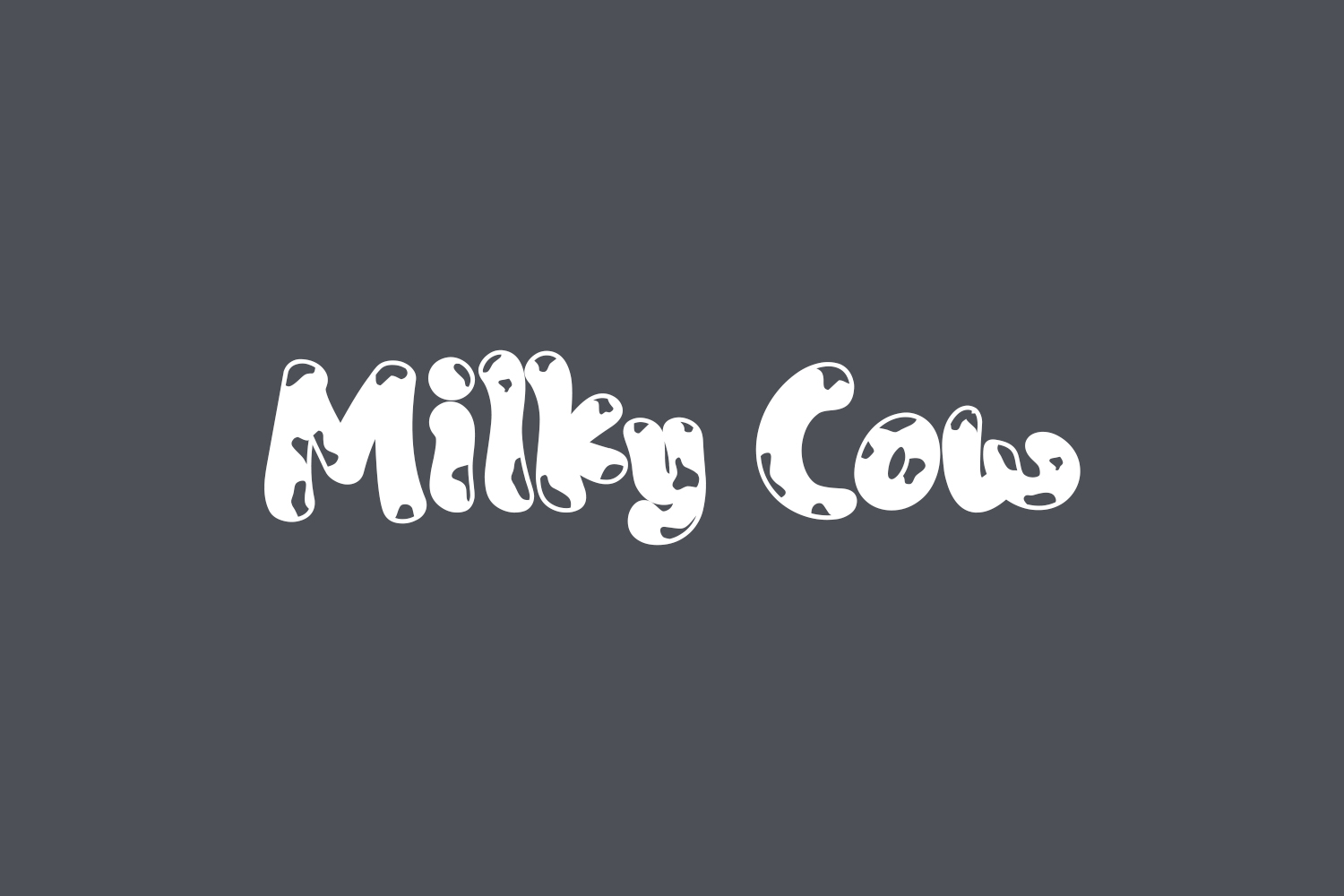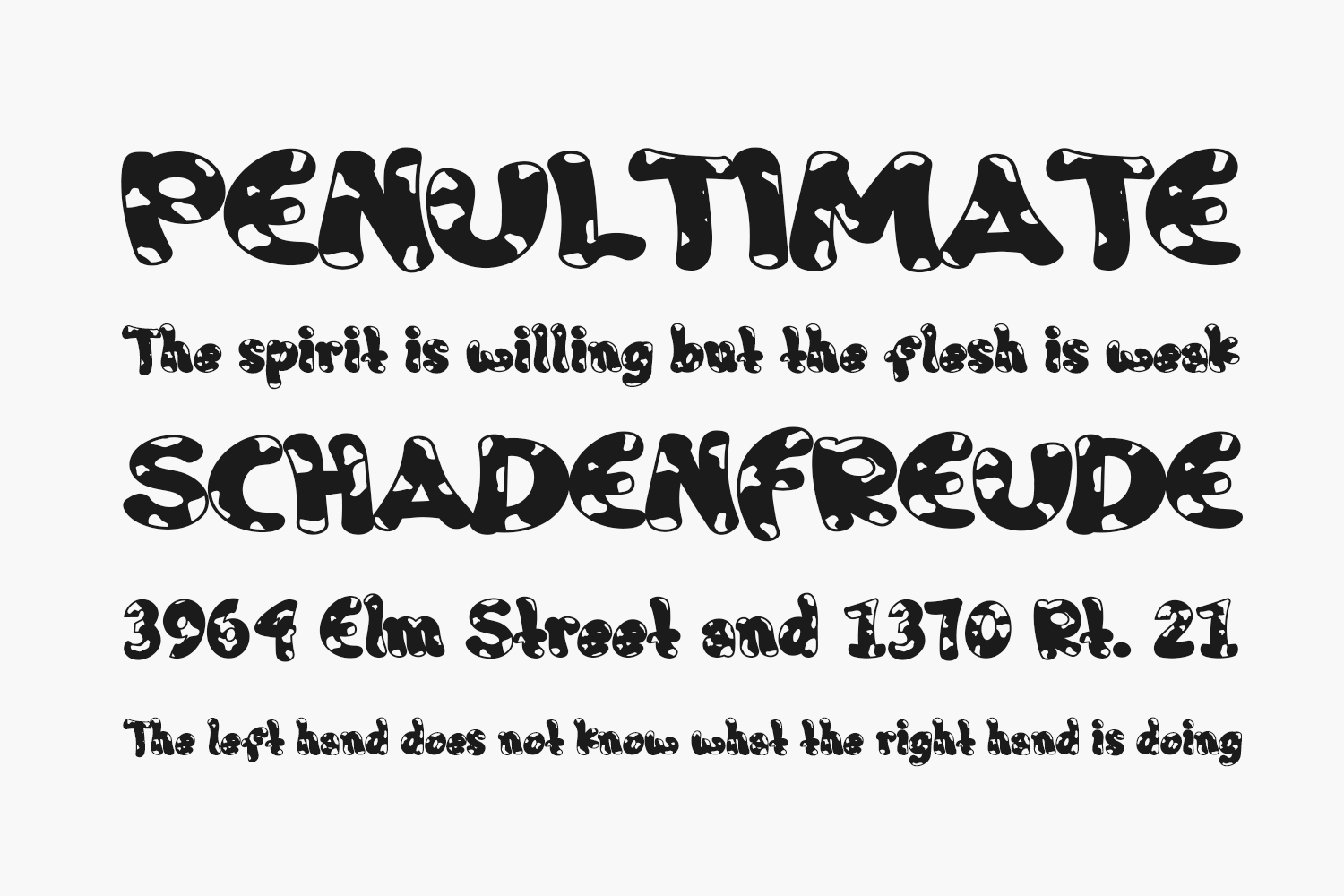
Introducing Milky Cow Free Font Family – an enchanting and effervescent display font that exudes a sense of coolness. With its playful charm, this font is perfect for children’s designs and adds a delightful touch of nostalgia to any project that craves a hint of childhood magic. Milky Cow Free Font Family is free for personal use only. Please purchase the full version for commercial use.